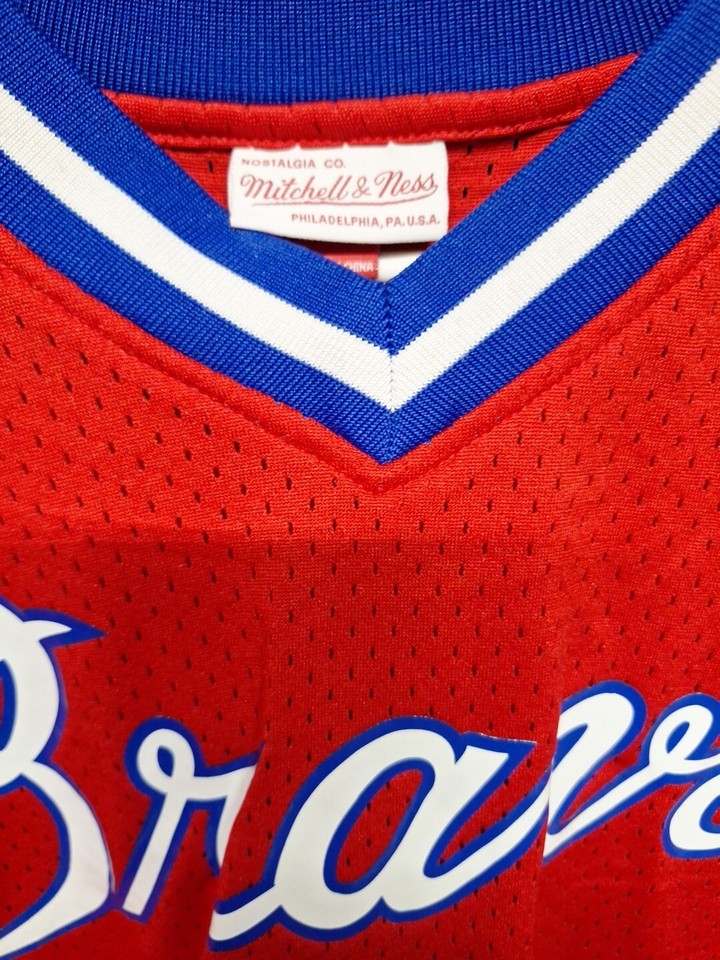
Braves Jersey Font . Braves font is designed on the base of an american baseball franchise. Browse by alphabetical listing, by style, by author or by popularity. We are providing atlanta braves font here for free that includes free font, lhs ballpark font, goldsmith font, baseball font, & new york yankees font. This typeface was developed by atlanta braves. We are providing braves font here for free that includes free font, ballpark font, world series font, baseball font, & sans serif font. It’s basically an american baseball franchise in the atlanta metropolitan area and it was launched in 1966. It was published in 2011 for the first time. The earlier font also had exaggerated curls and swirls, as well as extra lines. It’s worth noting that the font used in the atlanta braves logo is customized, meaning there are. The braves originally used an ornate and gothic font for the capitalized letter “b” on its wordmark. The font is primarily used for the atlanta braves logo and branding materials. Archive of freely downloadable fonts.
We are providing braves font here for free that includes free font, ballpark font, world series font, baseball font, & sans serif font. Braves font is designed on the base of an american baseball franchise. The earlier font also had exaggerated curls and swirls, as well as extra lines. We are providing atlanta braves font here for free that includes free font, lhs ballpark font, goldsmith font, baseball font, & new york yankees font. It’s worth noting that the font used in the atlanta braves logo is customized, meaning there are. Browse by alphabetical listing, by style, by author or by popularity. The braves originally used an ornate and gothic font for the capitalized letter “b” on its wordmark. It was published in 2011 for the first time. Archive of freely downloadable fonts. It’s basically an american baseball franchise in the atlanta metropolitan area and it was launched in 1966.
Braves Jersey Font The braves originally used an ornate and gothic font for the capitalized letter “b” on its wordmark. We are providing atlanta braves font here for free that includes free font, lhs ballpark font, goldsmith font, baseball font, & new york yankees font. We are providing braves font here for free that includes free font, ballpark font, world series font, baseball font, & sans serif font. The font is primarily used for the atlanta braves logo and branding materials. The braves originally used an ornate and gothic font for the capitalized letter “b” on its wordmark. It’s basically an american baseball franchise in the atlanta metropolitan area and it was launched in 1966. Braves font is designed on the base of an american baseball franchise. Archive of freely downloadable fonts. This typeface was developed by atlanta braves. Browse by alphabetical listing, by style, by author or by popularity. It was published in 2011 for the first time. It’s worth noting that the font used in the atlanta braves logo is customized, meaning there are. The earlier font also had exaggerated curls and swirls, as well as extra lines.
Les Braves d’Atlanta dévoilent de nouveaux uniformes City Connect Braves Jersey Font Braves font is designed on the base of an american baseball franchise. We are providing braves font here for free that includes free font, ballpark font, world series font, baseball font, & sans serif font. We are providing atlanta braves font here for free that includes free font, lhs ballpark font, goldsmith font, baseball font, & new york yankees font.. Braves Jersey Font.
98 Braves Song SVG PNG Braves Jersey Font We are providing atlanta braves font here for free that includes free font, lhs ballpark font, goldsmith font, baseball font, & new york yankees font. The braves originally used an ornate and gothic font for the capitalized letter “b” on its wordmark. It was published in 2011 for the first time. This typeface was developed by atlanta braves. It’s basically. Braves Jersey Font.
MLB Atlanta Braves Logo Stencil Free Stencil Gallery Braves Jersey Font We are providing braves font here for free that includes free font, ballpark font, world series font, baseball font, & sans serif font. It’s basically an american baseball franchise in the atlanta metropolitan area and it was launched in 1966. We are providing atlanta braves font here for free that includes free font, lhs ballpark font, goldsmith font, baseball font,. Braves Jersey Font.
ナイキ メンズ ユニフォーム Authentic Jersey White Braves Atlanta Home Custom トップス Braves Jersey Font It’s worth noting that the font used in the atlanta braves logo is customized, meaning there are. We are providing braves font here for free that includes free font, ballpark font, world series font, baseball font, & sans serif font. This typeface was developed by atlanta braves. The earlier font also had exaggerated curls and swirls, as well as extra. Braves Jersey Font.
Atlanta braves logo, Atlanta braves, Braves Braves Jersey Font We are providing atlanta braves font here for free that includes free font, lhs ballpark font, goldsmith font, baseball font, & new york yankees font. Archive of freely downloadable fonts. The font is primarily used for the atlanta braves logo and branding materials. We are providing braves font here for free that includes free font, ballpark font, world series font,. Braves Jersey Font.
Looking for that Atlanta Braves font. Some baseball fonts come close Braves Jersey Font It’s basically an american baseball franchise in the atlanta metropolitan area and it was launched in 1966. Browse by alphabetical listing, by style, by author or by popularity. The braves originally used an ornate and gothic font for the capitalized letter “b” on its wordmark. The font is primarily used for the atlanta braves logo and branding materials. The earlier. Braves Jersey Font.
Atlanta Braves Font Free Download Fonts Bee Braves Jersey Font The font is primarily used for the atlanta braves logo and branding materials. The earlier font also had exaggerated curls and swirls, as well as extra lines. Browse by alphabetical listing, by style, by author or by popularity. The braves originally used an ornate and gothic font for the capitalized letter “b” on its wordmark. It was published in 2011. Braves Jersey Font.
For the A and the Hammer Atlanta Braves Unveil New City Connect Braves Jersey Font This typeface was developed by atlanta braves. The earlier font also had exaggerated curls and swirls, as well as extra lines. It was published in 2011 for the first time. It’s worth noting that the font used in the atlanta braves logo is customized, meaning there are. It’s basically an american baseball franchise in the atlanta metropolitan area and it. Braves Jersey Font.
What Font Does The Atlanta Braves Use Dara Fonts Braves Jersey Font This typeface was developed by atlanta braves. The earlier font also had exaggerated curls and swirls, as well as extra lines. Archive of freely downloadable fonts. It was published in 2011 for the first time. It’s worth noting that the font used in the atlanta braves logo is customized, meaning there are. We are providing braves font here for free. Braves Jersey Font.